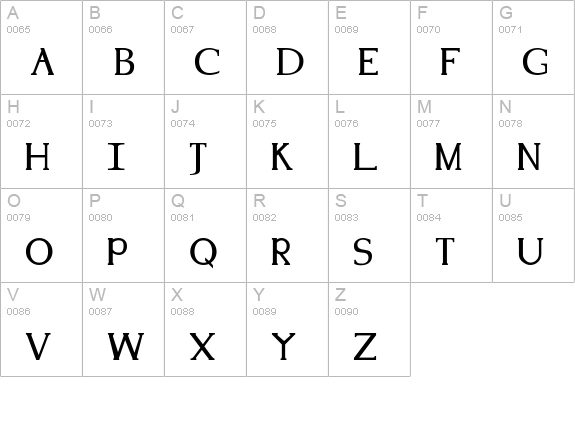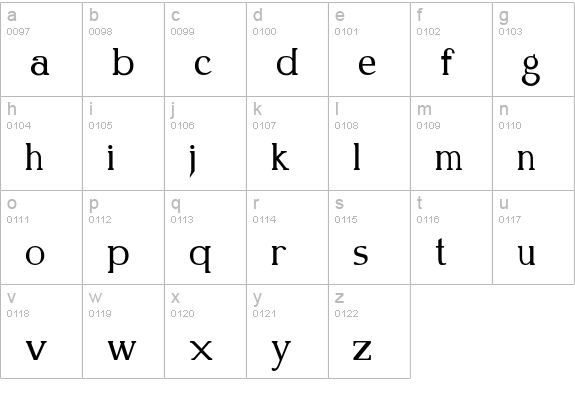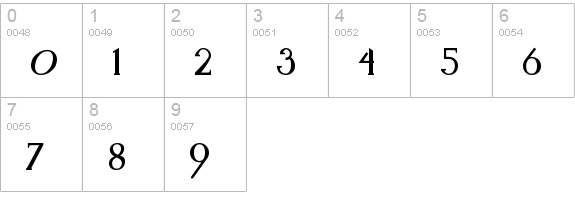
Kennon Font Details
Kennon font is a beautifully crafted typeface that exudes elegance and sophistication. Its clean lines and well-balanced proportions make it the perfect choice for a wide range of design projects. Whether you are creating a logo, designing a website, or crafting a print advertisement, Kennon font will add a touch of class and professionalism to your work. With its timeless design, Kennon font is suitable for both modern and traditional designs. Its versatility allows it to be used in various contexts, from corporate branding to wedding invitations. The carefully crafted letterforms and extensive character set ensure that your message will be delivered with clarity and style. One of the best things about Kennon font is that it is free! Yes, you heard that right. This amazing font is freely available to download at FontsMarket.com. You can easily access and use this font in your projects without any cost. This makes it an ideal choice for designers on a budget or anyone looking to add a touch of sophistication to their work without breaking the bank. So why wait? Download Kennon font today and elevate your designs to new heights. With its timeless elegance and free availability, this font is a must-have for any designer's toolkit. Don't miss out on the opportunity to enhance your projects with the beauty and versatility of Kennon font. Visit FontsMarket.com now and take advantage of this incredible offer.